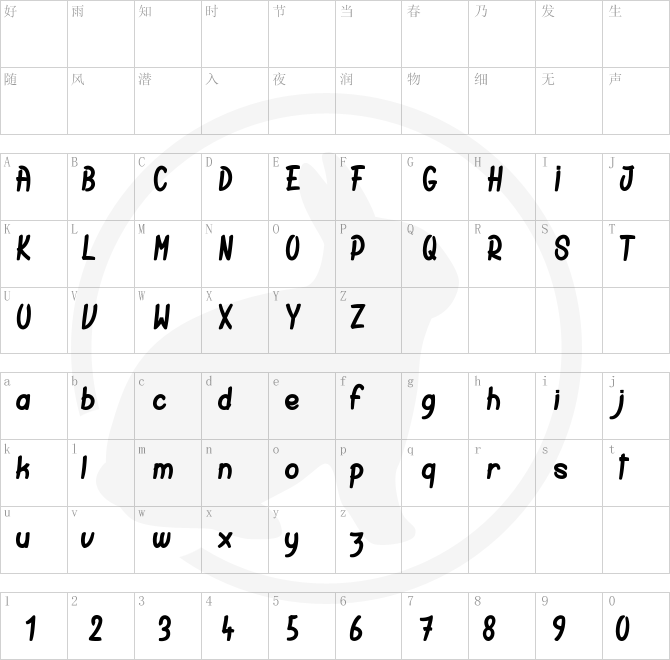
- Font Name:Rabbit Hole
- Full Name:Rabbit Hole
Rabbit-Hole.ttf is a very beautiful artistic font, Rabbit-Hole.ttf is widely used in the design and printing of various books and pictures,Rabbit-Hole.ttf has a strong visual impact,Rabbit-Hole.ttf is a commonly used font in newspapers, magazines and books, and is used in posters, e-commerce Poster design, store design, logo design, font design and other fields.Rabbit-Hole.